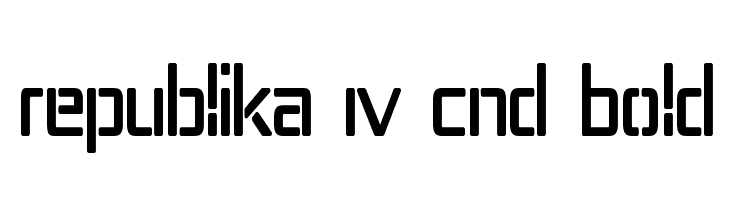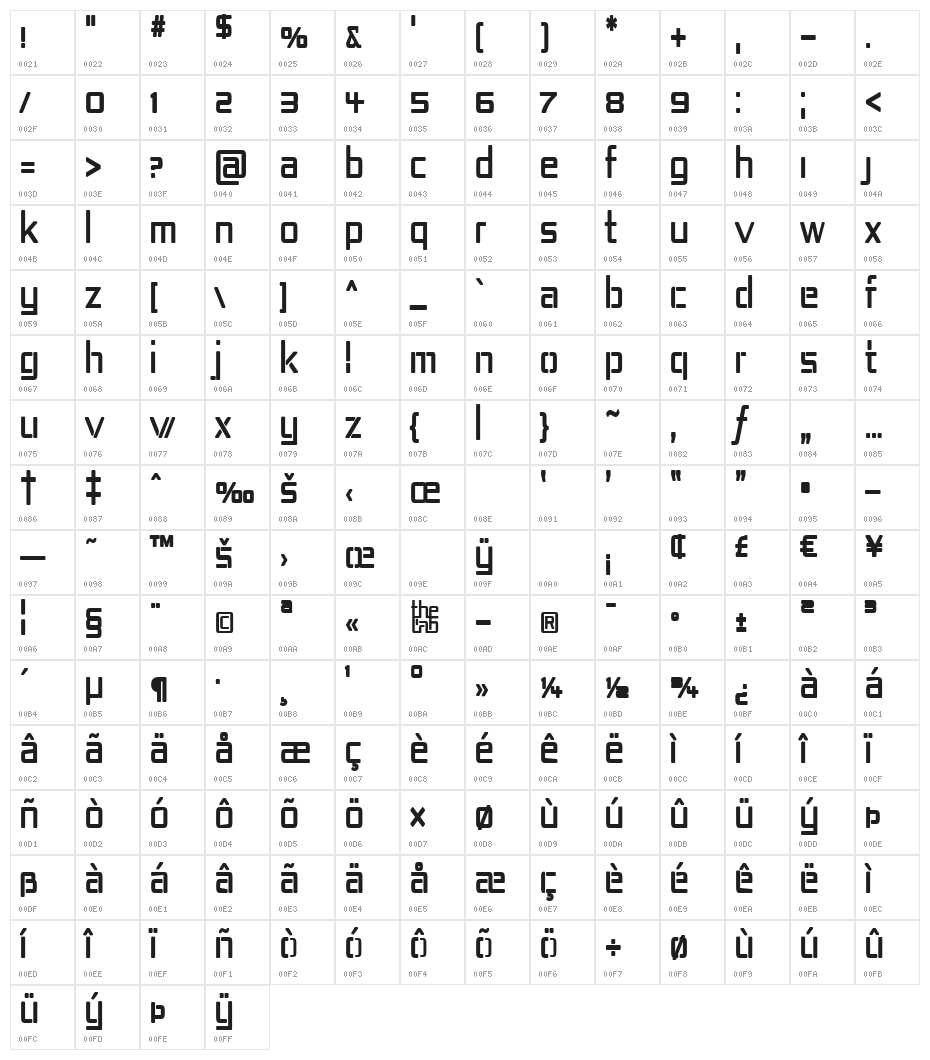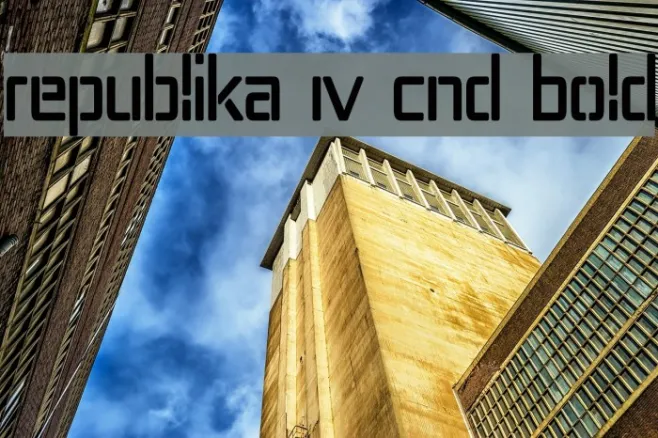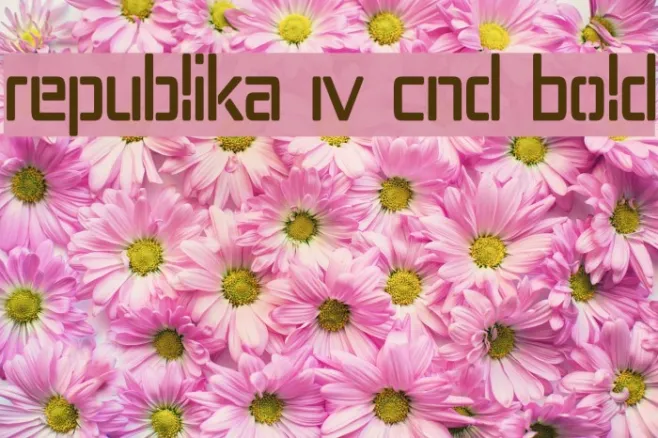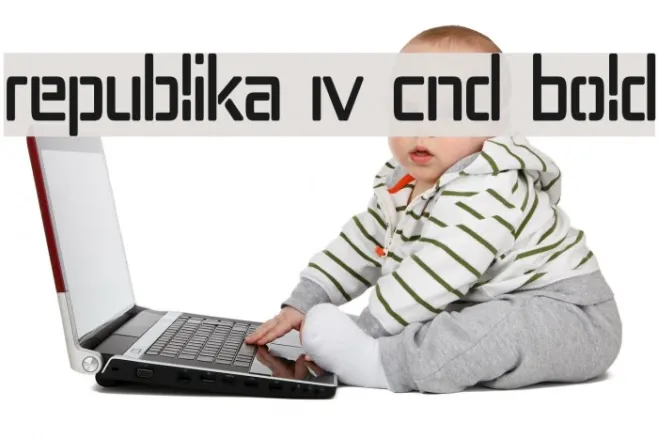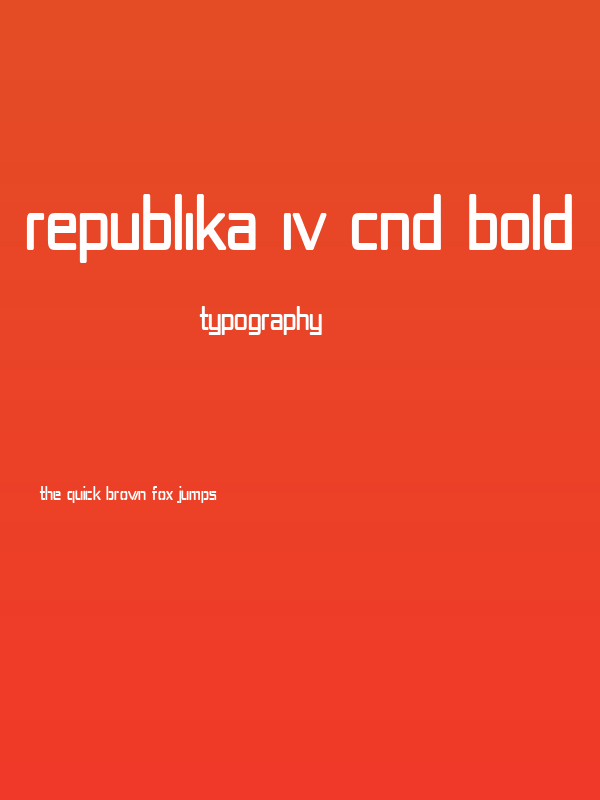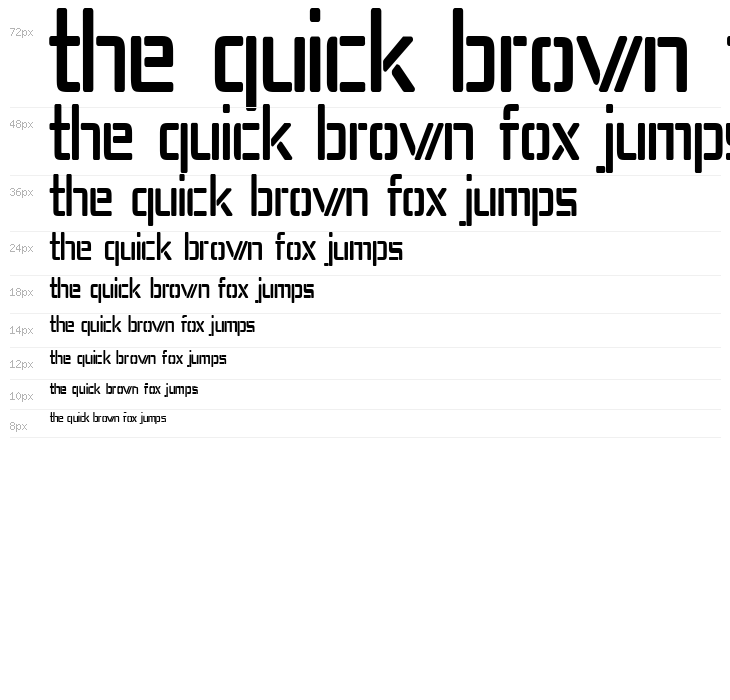
Republika IV Cnd Bold Font
Republika IV Cnd Bold Description
This font features a bold, geometric design with a distinctly modern and futuristic aesthetic. The characters are constructed with consistent stroke widths, giving them a uniform appearance. The edges are rounded, which softens the overall look and adds a touch of approachability. The condensed width of the characters allows for efficient use of space, making it suitable for headlines and display purposes. The font maintains a clean and structured feel, with minimal contrast in stroke thickness, emphasizing clarity and readability. Its unique style makes it ideal for projects that require a contemporary and tech-savvy vibe.
| Use Case | Headlines, Logos, Display |
| Proposed Projects | Ideal for tech branding, futuristic posters, digital interfaces, and modern advertising. |